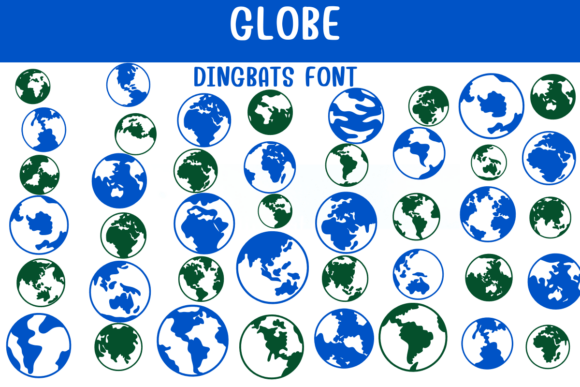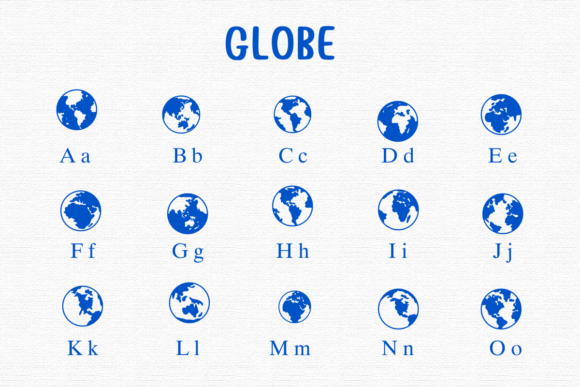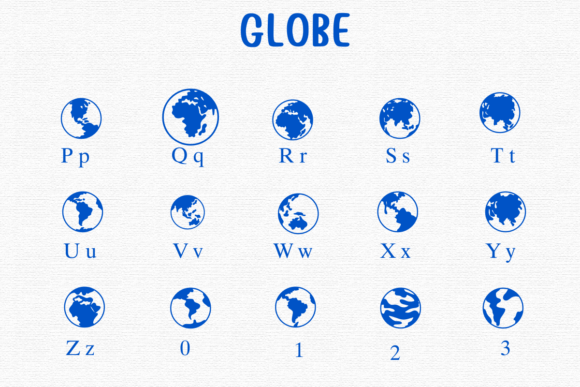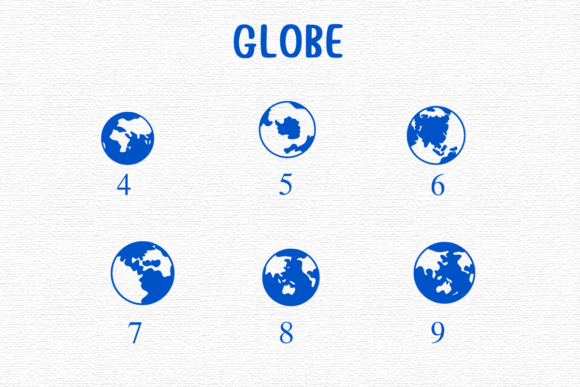
Globe Font
About the Globe Font
Let us introduce you to Globe Font, where timeless design meets modern craftsmanship. Globe is a dingbats font with an earthly theme. This font can enhance your creative projects such as wedding invitations, DIY, crafts, decorations, logos, and many other creative ideas.
Globe Font’s earthy dingbat style is ideal for projects requiring a whimsical, handcrafted feel. It excels in branding applications where a touch of rustic charm is desired, such as logos for small businesses, artisanal food products, or eco-conscious brands. It also works well on invitations, especially those with a nature-inspired theme, and in short decorative elements within larger layouts. However, avoid using Globe Font for body text or UI elements; its decorative nature makes it unsuitable for extended reading.
Pairing Globe Font effectively depends on the desired balance. For a more modern feel, consider pairing it with a clean sans-serif font like Open Sans or Lato for body text. To emphasize the handcrafted aspect, a serif font like Playfair Display or Lora can create a classic, elegant contrast. Using a script font like Great Vibes sparingly can enhance the romantic or whimsical aspects of the design.
Globe Font projects an overall personality of friendly approachability with a touch of rustic charm. Its strength lies in its ability to add visual interest and a unique personality to projects that benefit from a handcrafted or nature-inspired aesthetic.
Globe Font Usage Examples
Globe Font Example